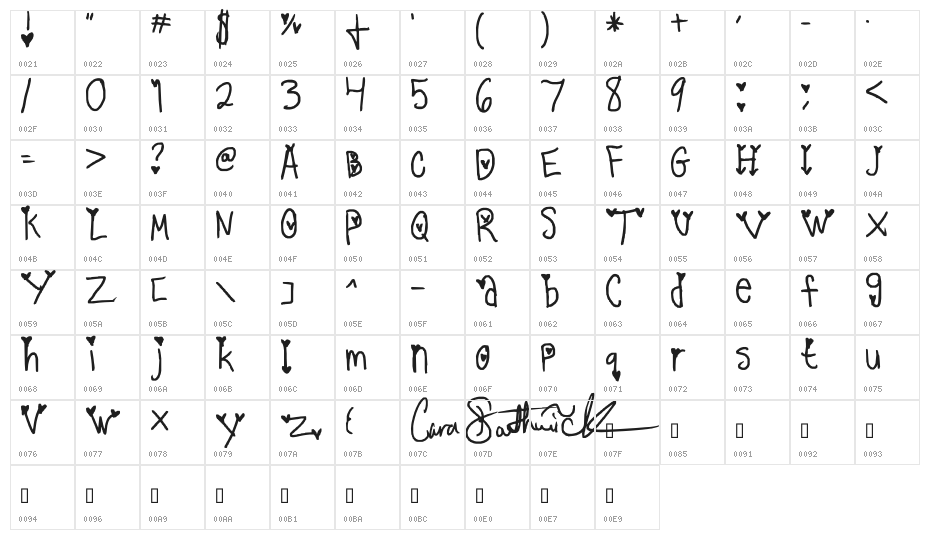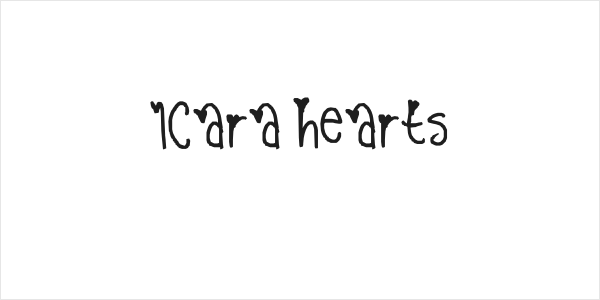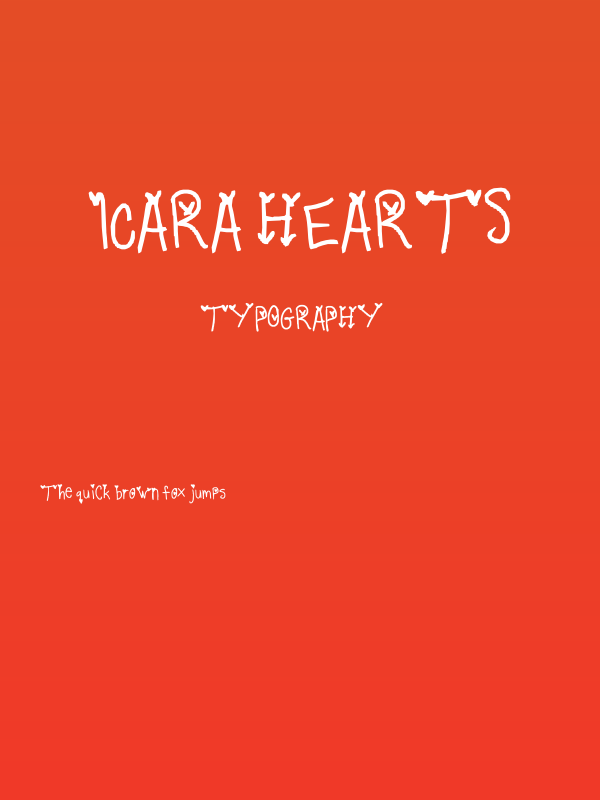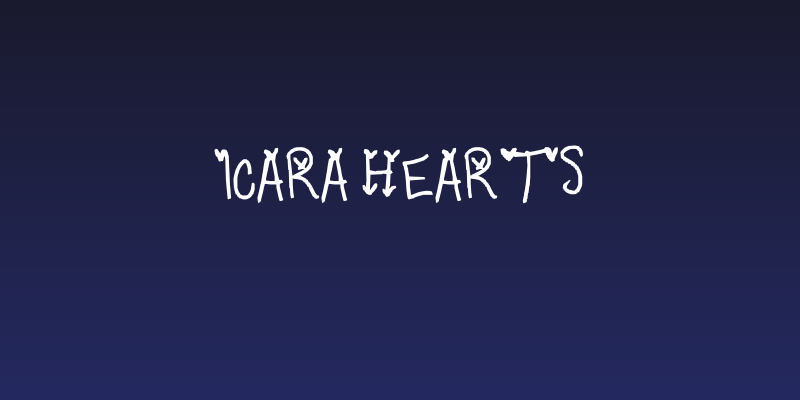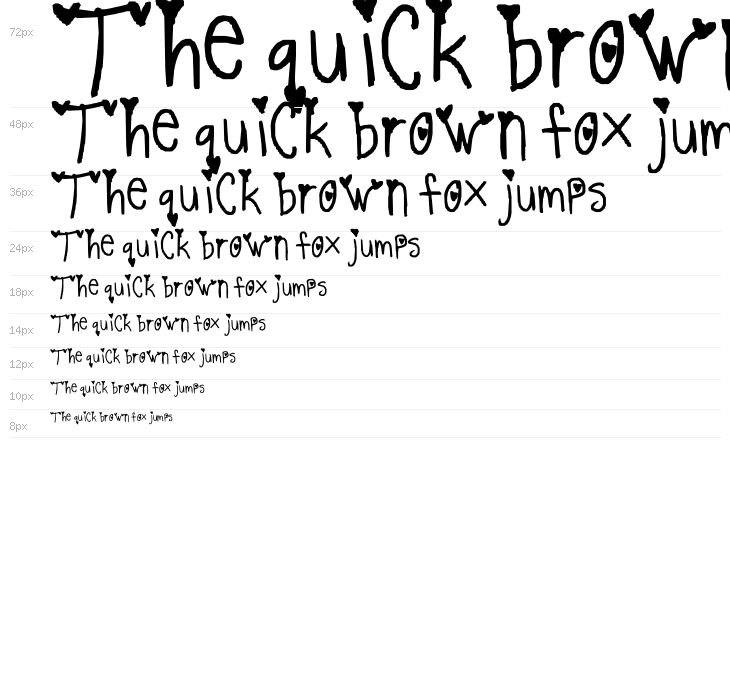
1cara hearts Font
1cara hearts Description
This playful and whimsical font features heart motifs integrated into the design of each character, giving it a unique and charming appearance. The letters are bold and slightly irregular, adding to the hand-drawn aesthetic. The uppercase and lowercase letters maintain a consistent style, with the heart shapes prominently featured at the end of strokes or as part of the letter structure. Numbers and special characters are also designed with the same heart-themed embellishments, making the font cohesive and visually appealing. The overall style is casual and fun, suitable for projects that require a touch of romance or playfulness.
| Proposed Projects | Ideal for Valentine's Day cards, wedding invitations, playful branding, and children's book covers. |